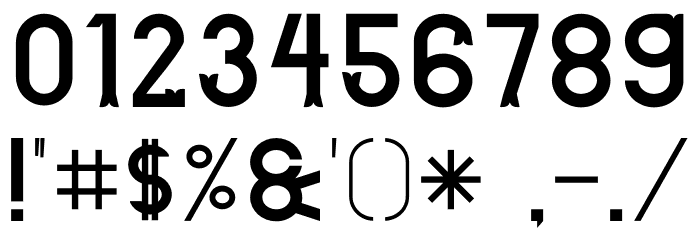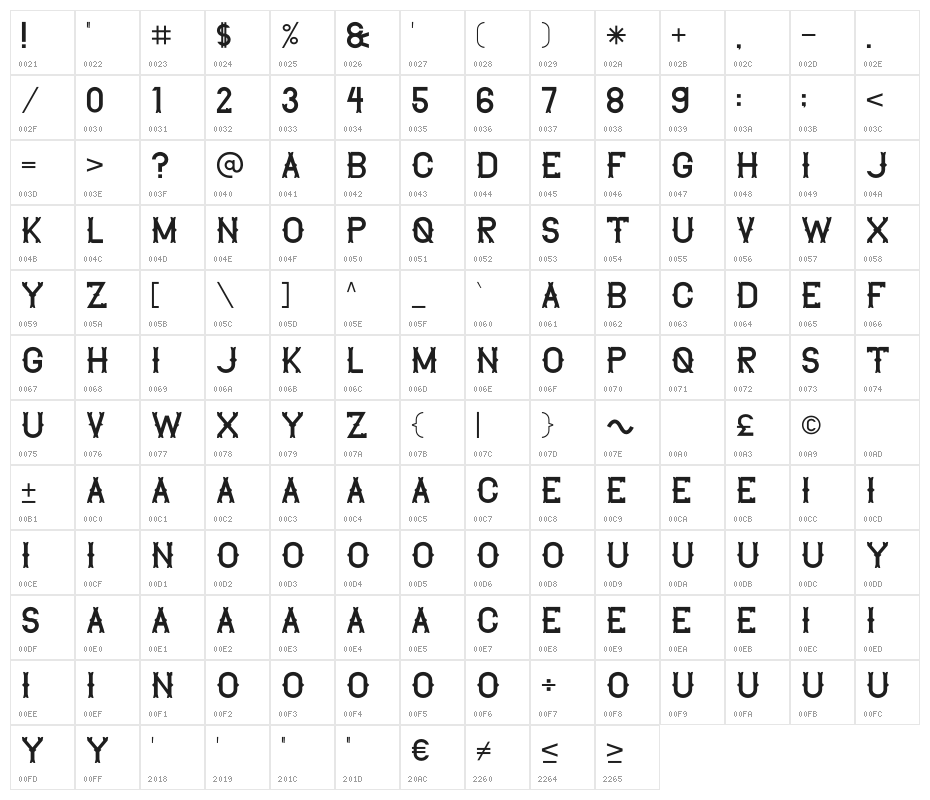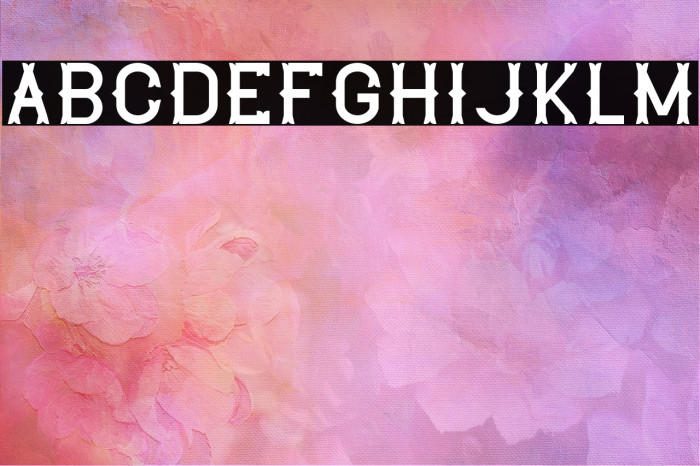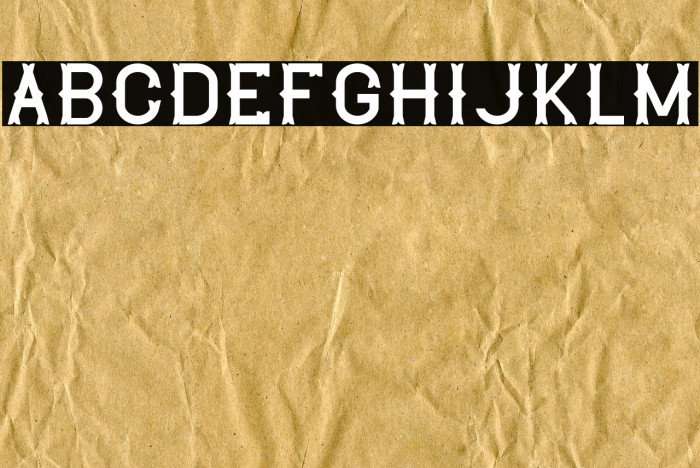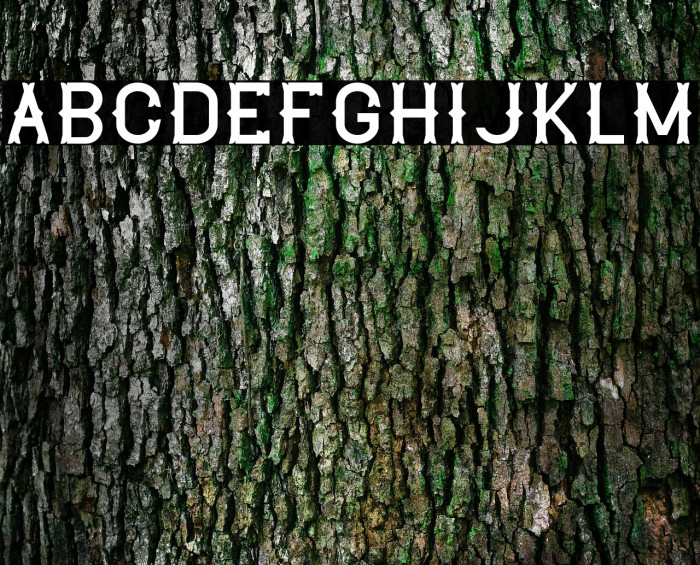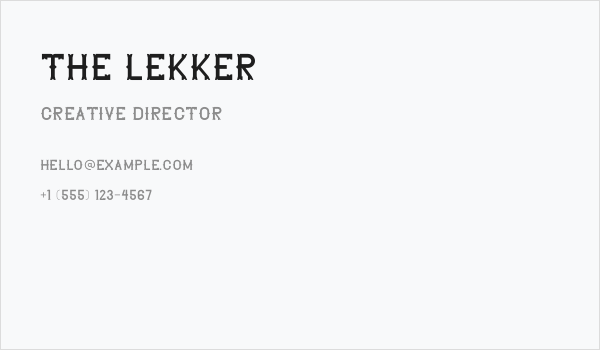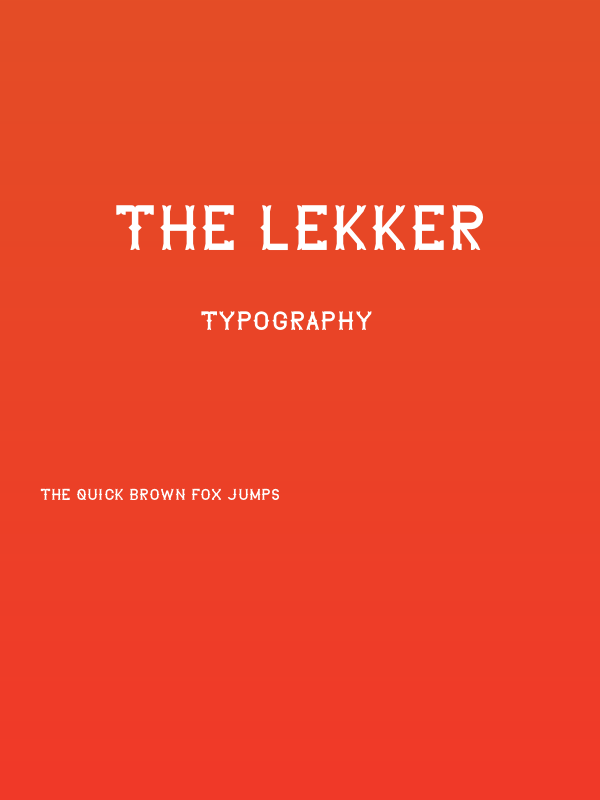
The Lekker Font
The Lekker Description
This font features a bold and striking design with a modern twist. The characters are crafted with a unique blend of geometric shapes and sharp edges, giving it a distinctive and edgy appearance. The uppercase letters are particularly prominent, with a strong presence that commands attention. The numerals are equally bold, maintaining the font's cohesive style. Special characters are included, each designed with the same attention to detail and modern aesthetic. This font is perfect for projects that require a contemporary and impactful look.
| Proposed Projects | Ideal for branding, posters, headlines, and any design requiring a modern, impactful look. |